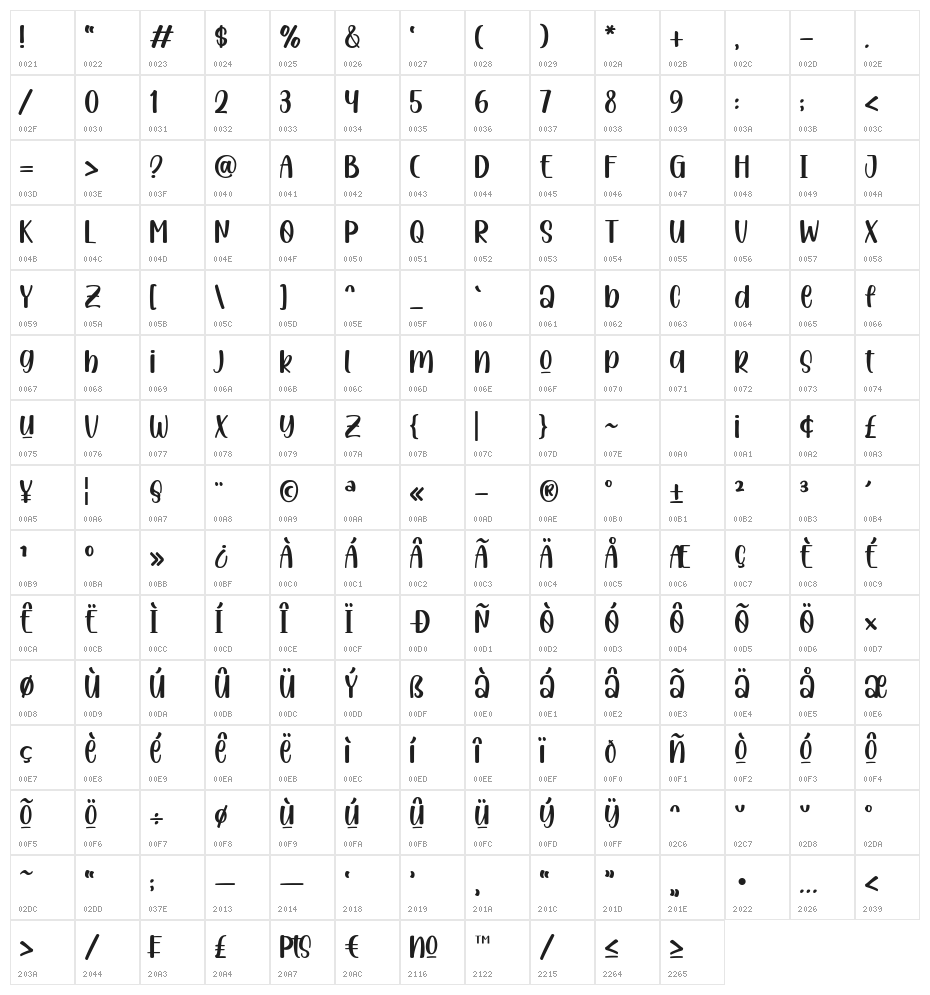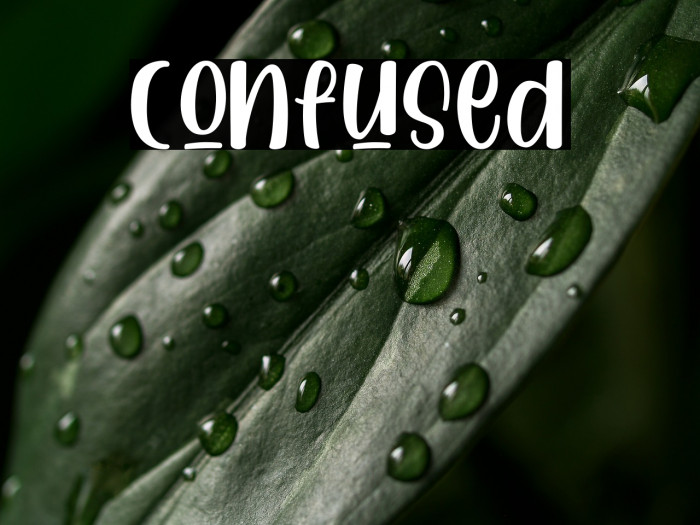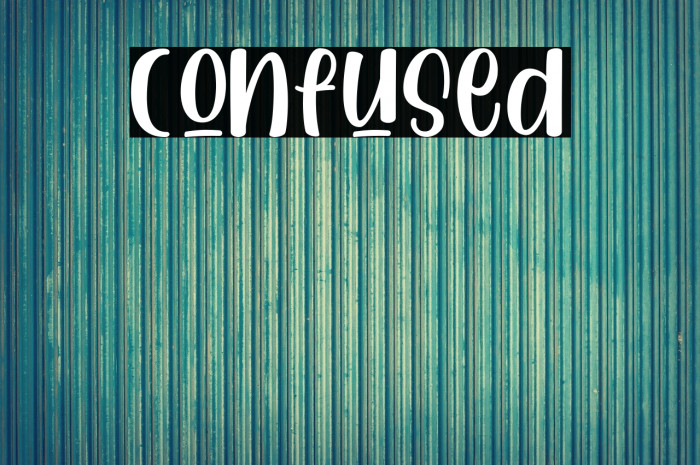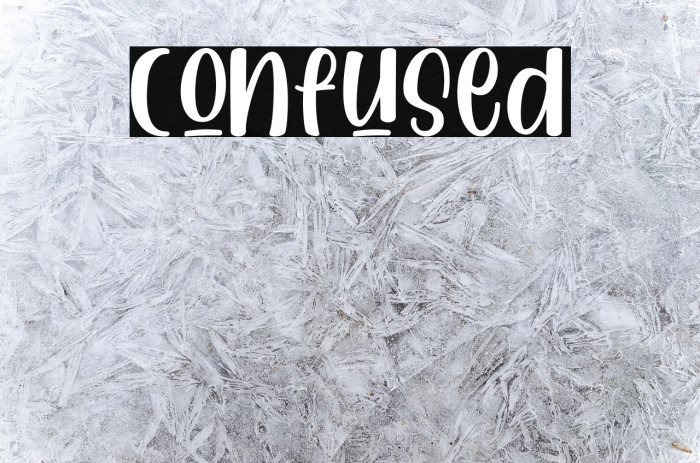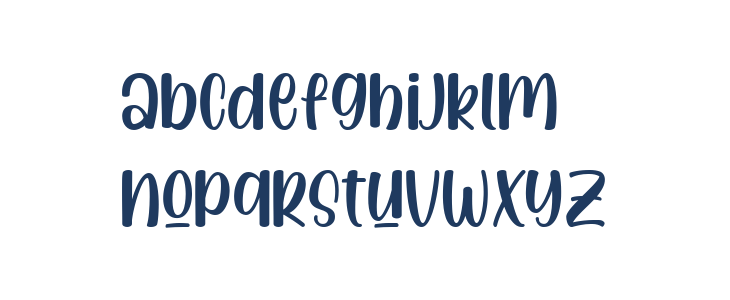
Confused Font
Confused Description
This font features a playful and whimsical style with bold, rounded characters that exhibit a hand-drawn aesthetic. The uppercase and lowercase letters maintain a consistent flow with slight variations in stroke width, adding a dynamic and lively feel. The numbers and special characters are equally bold and expressive, complementing the overall design. The font's unique personality makes it suitable for creative and informal projects, where a touch of fun and individuality is desired.
| Proposed Projects | Ideal for children's books, greeting cards, playful branding, and creative posters. |